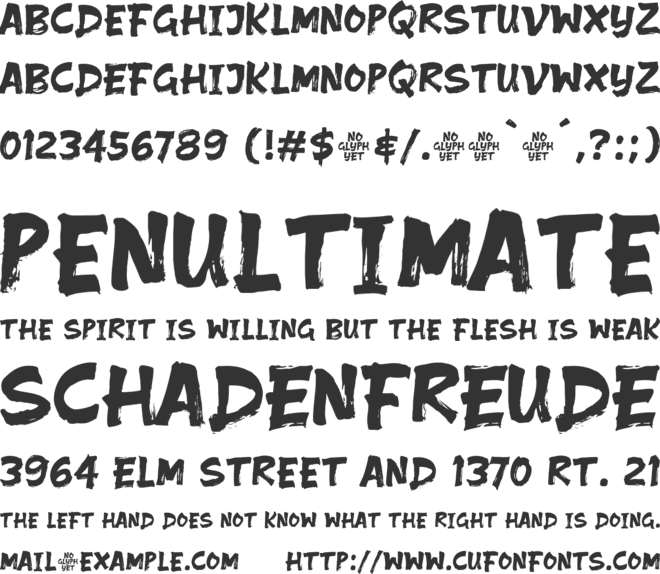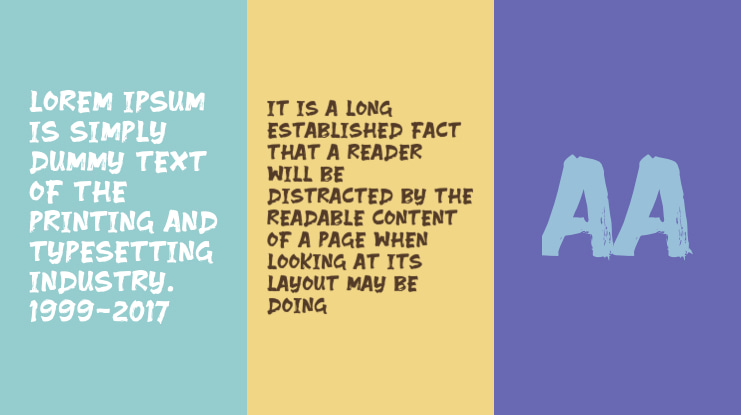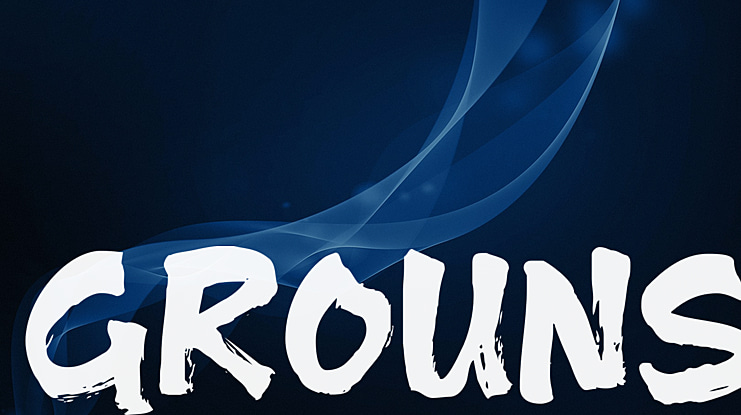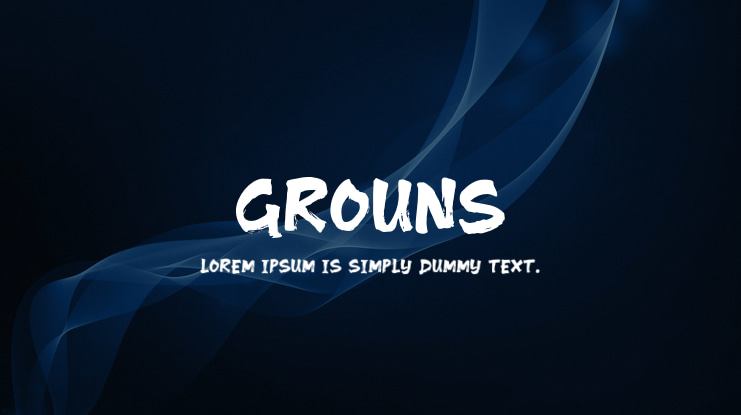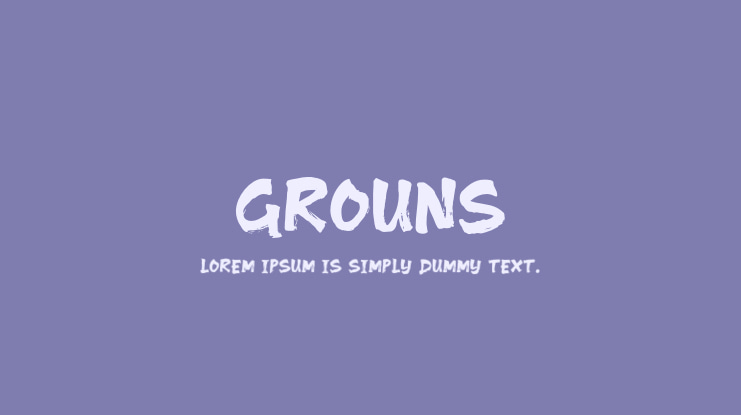
Grouns Font
A dry brush font with spontaneous salty movements. Has a bold and assertive personality so that your design looks more solid and pro.
Goruns is suitable for tees, posters, and other typography design.